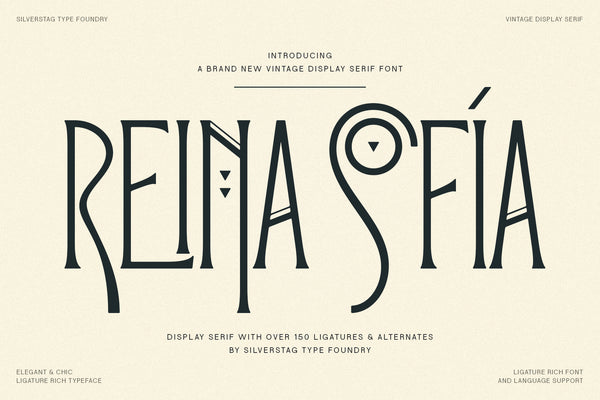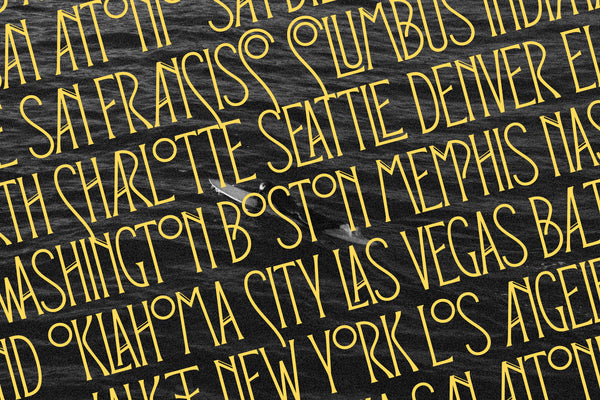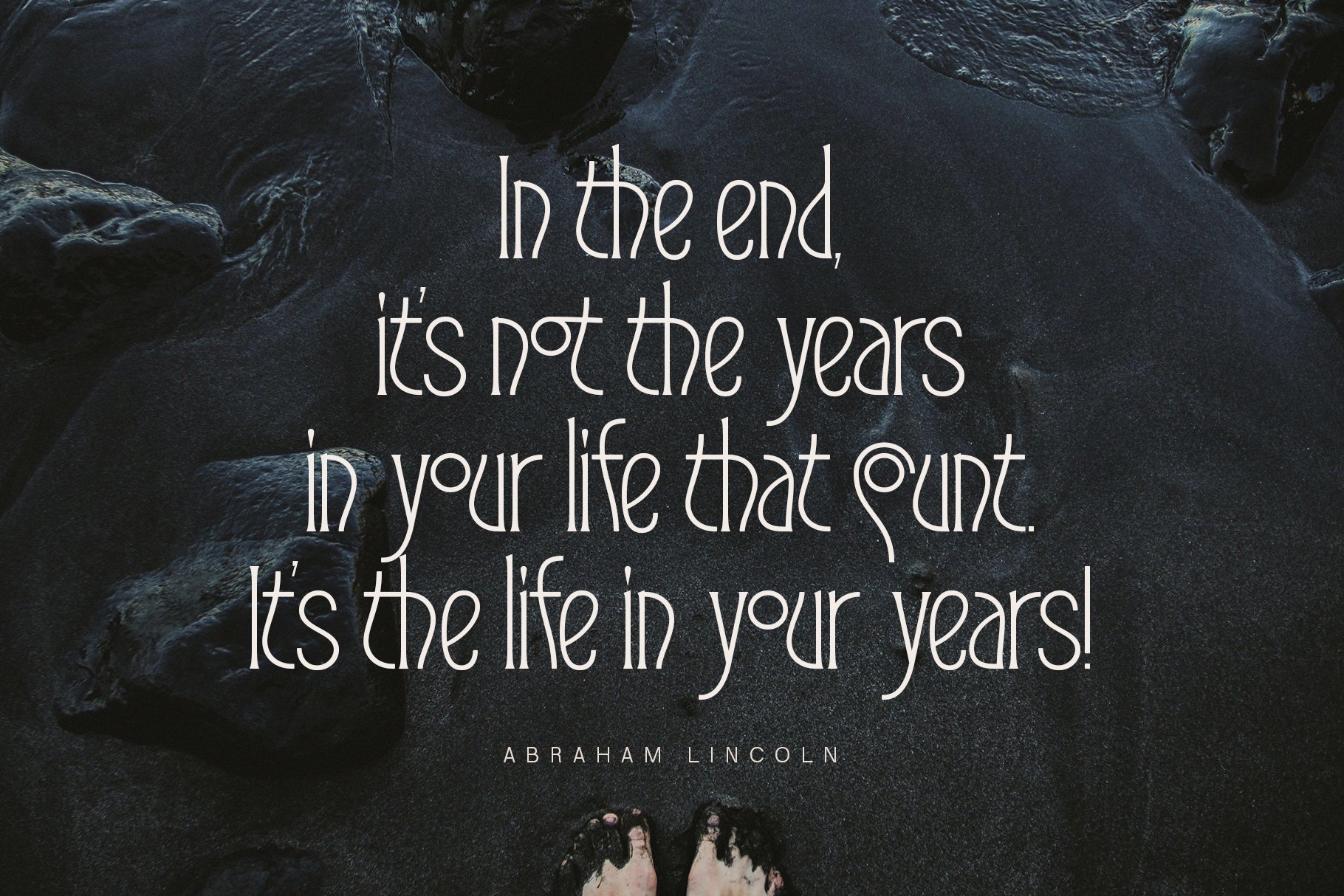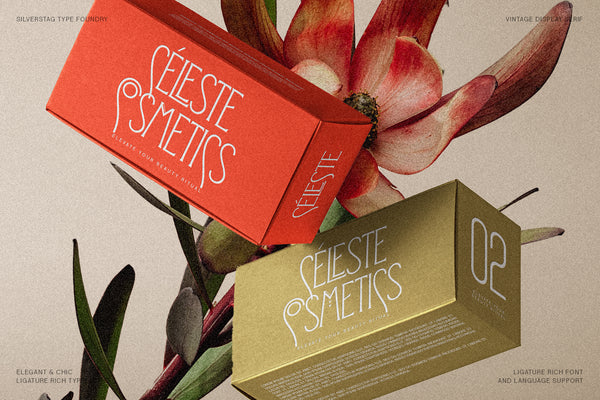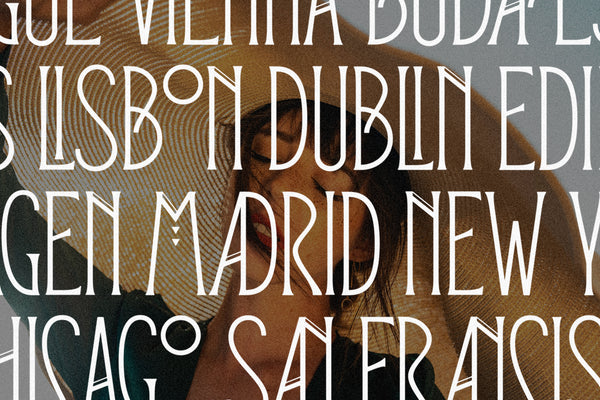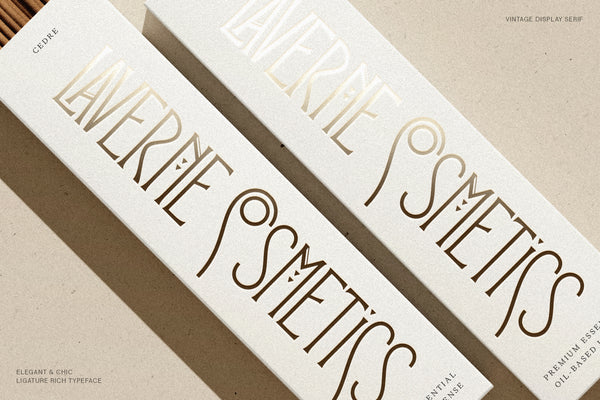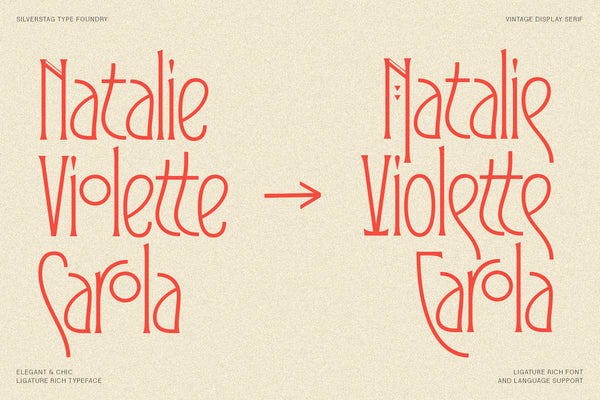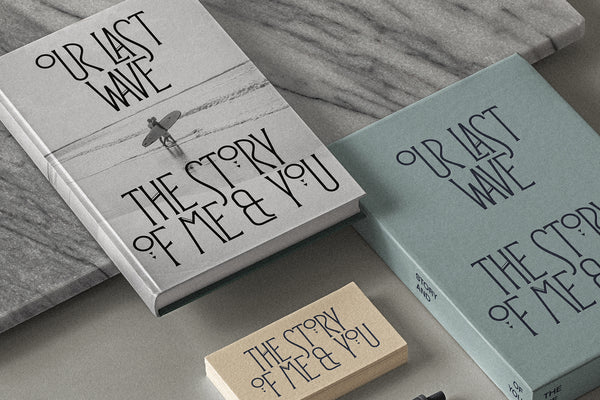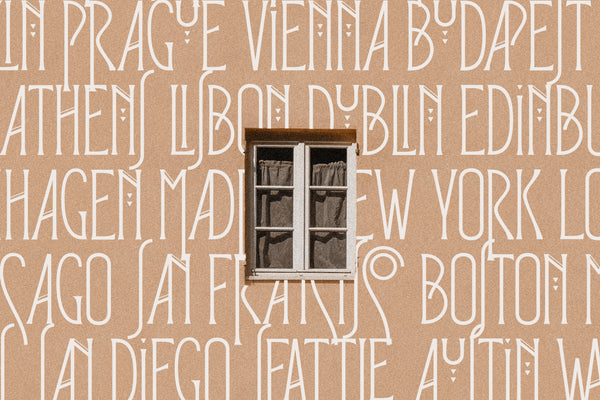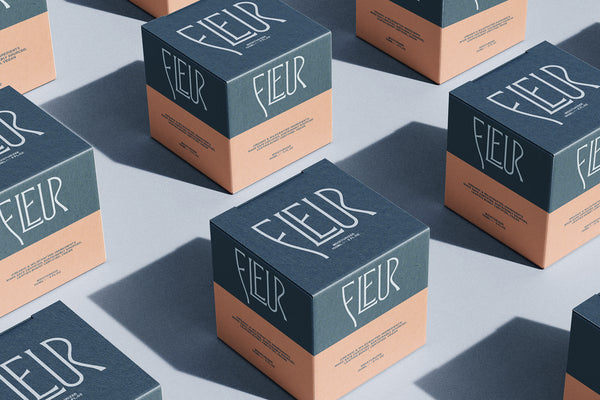
Reina Sofía is a vintage-inspired display serif font that blends Art Deco elegance with Art Nouveau flourish. Influenced by the grandeur of Madrid’s Reina Sofía Museum, this typeface evokes the opulence and creative spirit of early 20th-century design—ideal for elegant branding, editorial layouts, packaging, and invitations.
Featuring over 150 carefully crafted ligatures and stylistic alternates, Reina Sofía offers a wide range of expressive possibilities. Its intricate details, flowing lines, and bold serifs bring sophistication and artistic flair to any typographic composition.
Whether you’re designing luxurious wedding invitations, period-themed posters, heritage branding, or editorial titles that need to stand out, Reina Sofía delivers a timeless visual voice full of drama and refinement. With support for 90+ languages, it’s also globally adaptable for creatives working across cultures.